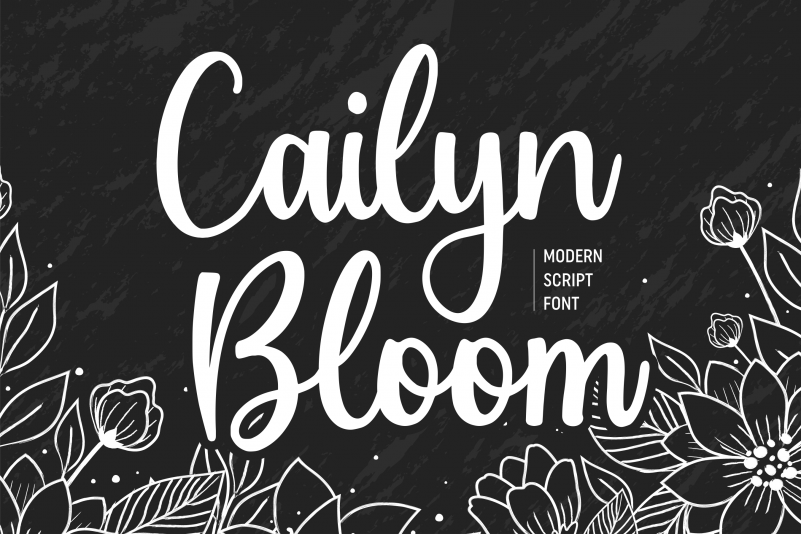
Cailyn Bloom Modern Script Font
Cailyn Bloom is a modern script font.
Cailyn Bloom is a modern handmade script font. This font is ideal for branding and decorate your any project, are perfect for wedding invitation or your blog.